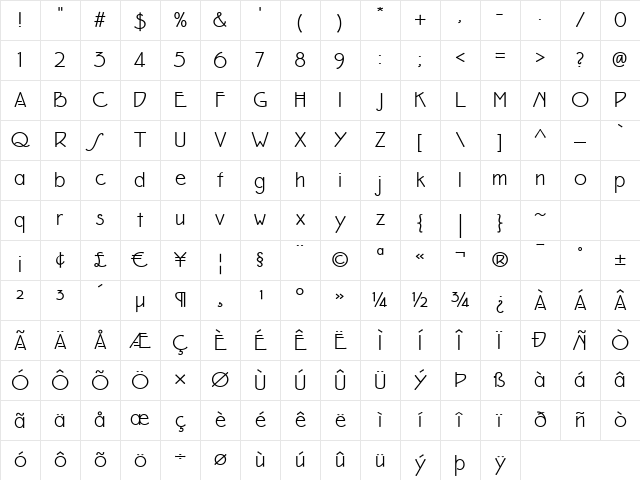
P22 Eaglefeather Medium Free Font
P22 Eaglefeather Medium
Design Context for P22 Eaglefeather
P22 Eaglefeather is a composed and adaptable typeface that performs quietly and consistently across a wide range of design contexts.